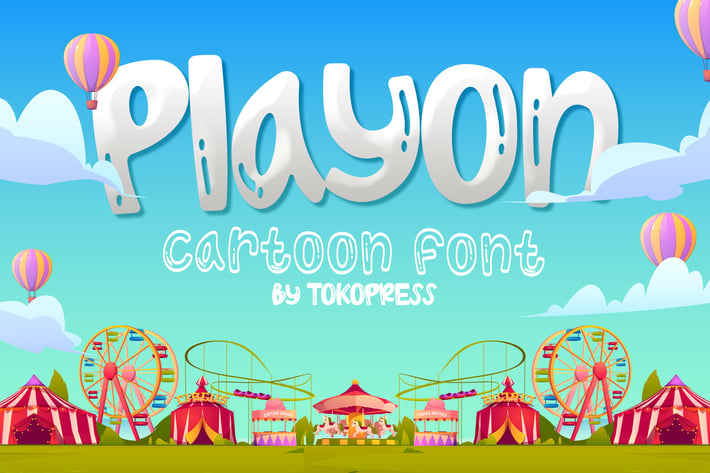
Playon - kids font
Playon - Kids Font
Playon is a bouncy cartoon typeface designed to energize children’s media with joyful curves, soft terminals, and rounded structure. With its hand-drawn feel and expressive flow, it radiates a playful and uplifting tone that fits perfectly into colorful branding, interactive kids books, and character-driven illustrations. Its low-contrast strokes and exaggerated proportions make every letter pop with friendly confidence—ideal for playful projects with heart.
Whether you’re designing an educational app, branding a toy store, or creating vibrant storybook covers, Playon gives your visuals that spark of youthful charm. It invites engagement while staying legible, making it the ideal choice for packaging, classroom printables, YouTube thumbnails, or early learning games. This typeface sets a joyful tone that builds trust with children and parents alike.
Key Features
Why Designers Choose Playon:
- Soft Rounded Forms: Promotes a friendly, inclusive vibe for children’s brands
- High Legibility: Clear letterforms ensure easy reading across print and screen
- Playful Rhythm: Bouncy baseline and irregular widths for added visual motion
- Instant Character: Infuses every design with personality without needing extra effects
Bring stories, products, and apps to life with Playon—a joyful font that speaks to kids and grown-ups alike. Add this lovable letterform to your toolbox and give your next project a charming, energetic twist that stands out in any creative space. Start playing with Playon today!